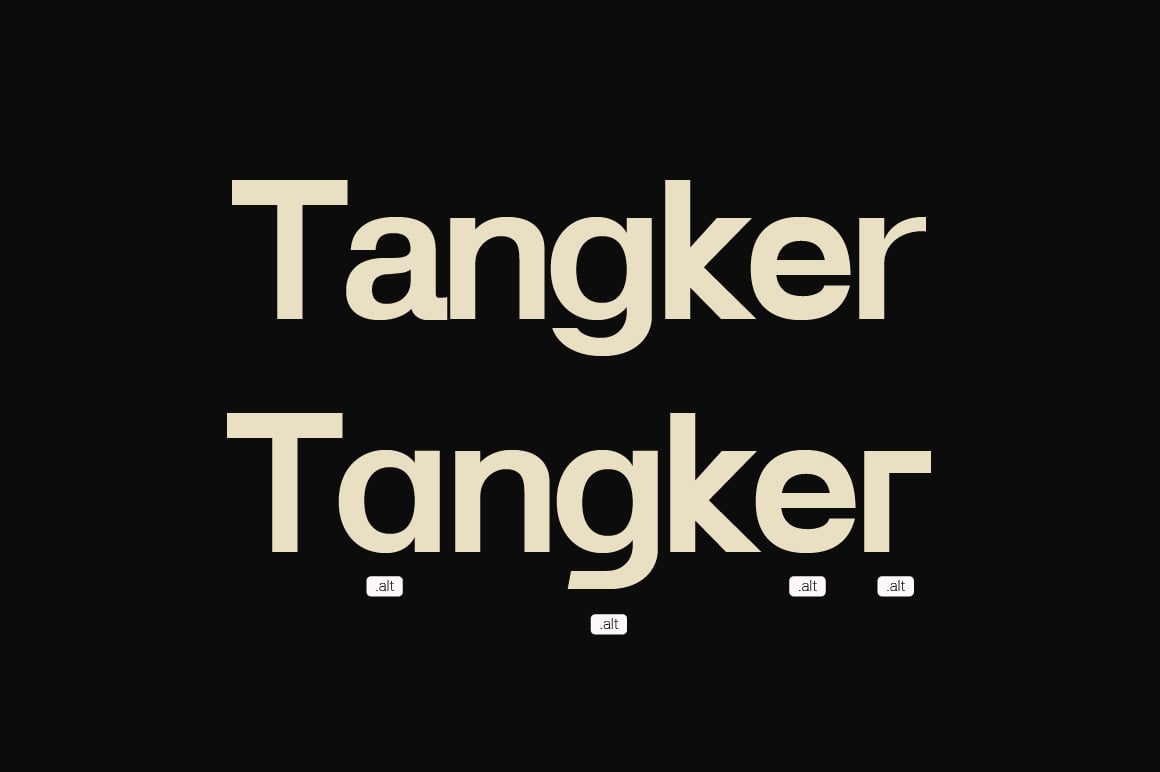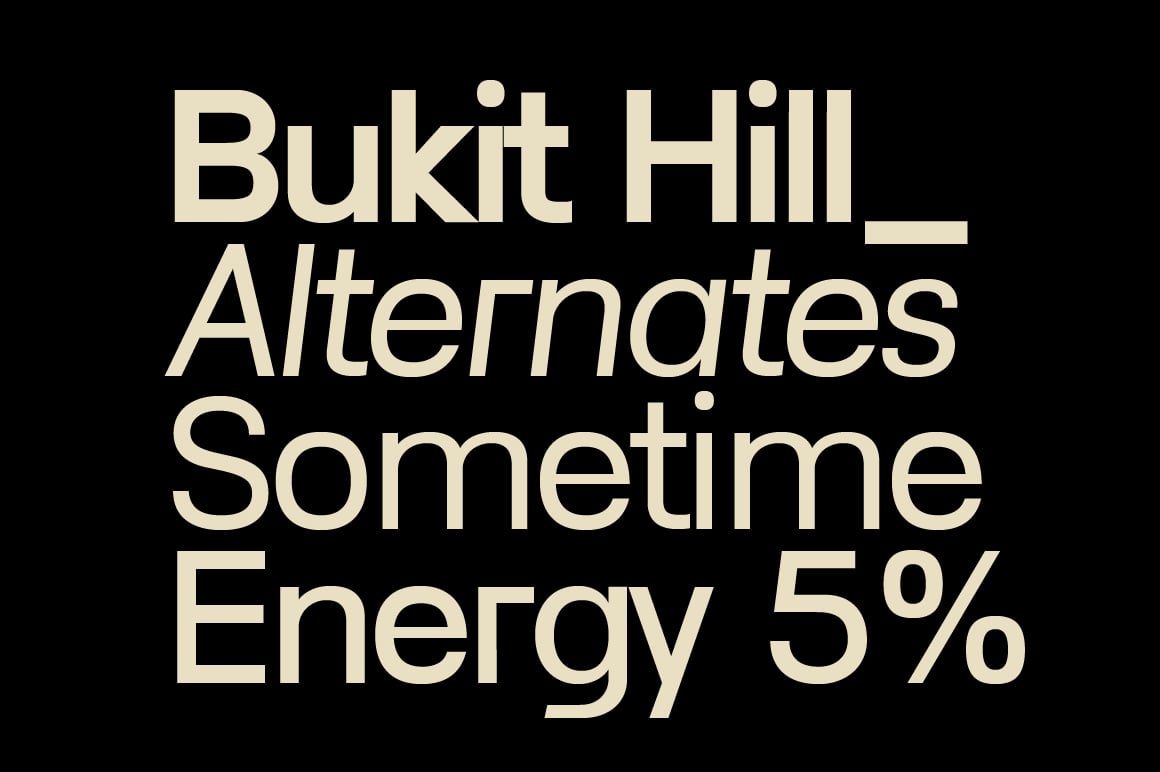
Lenia Sans a Modern Geometric Sans Serif Family Font
Lenia Sans a Modern Geometric Sans Serif Family Font is a versatile typeface ideal for various projects, including Sans-Serif, logos, branding, posters, blog headers, advertisements. The free version includes a full set of uppercase and lowercase letters, available in TTF format.
Lenia Sans a Modern Geometric Sans Serif Family Font Sample